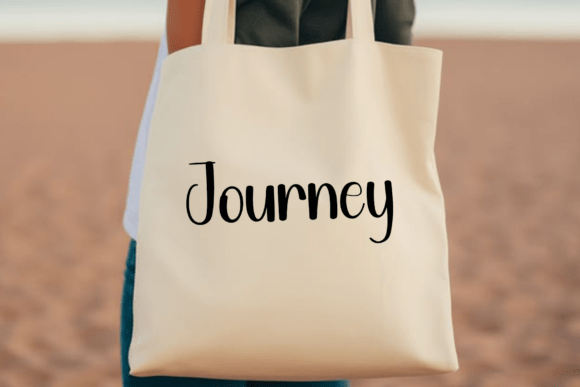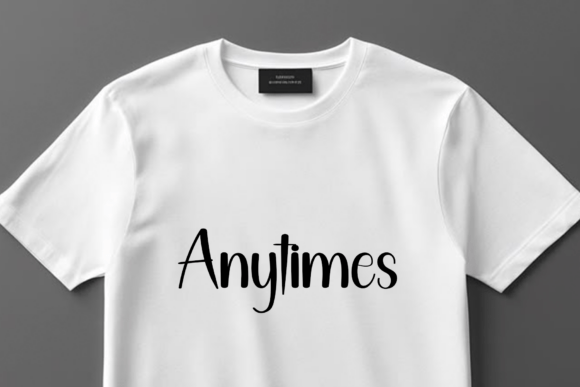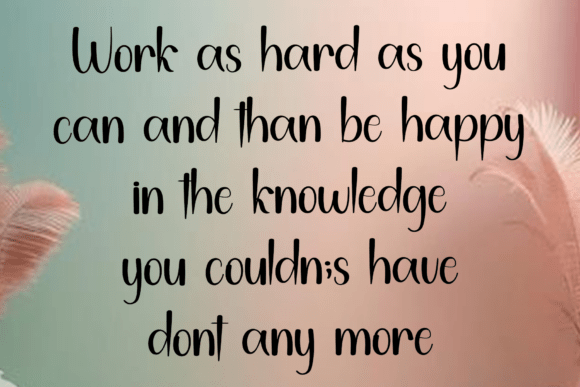
Introduction to Modern Homestay Font
Have you ever stared at a blank canvas, feeling stuck, yet craving the perfect font to bring your creative project to life? It’s that moment when you’re searching for the perfect design resource to convey the essence of your brand. For many designers, finding the right font can be a game-changer.
That’s where the Modern Homestay Font comes in – a beautiful, high-quality handwritten script font that exudes warmth and comfort. With its smooth, flowing lines, it’s the perfect addition to any design project, whether you’re creating branding, packaging, signage, or lifestyle blog content.
What sets Modern Homestay Font apart is its ability to add a personal touch to your designs. Available for free download with a transparent background, this versatile font is a valuable resource for designers looking to elevate their creative projects.
Key Features of Modern Homestay Font
- High-quality design resource for creative projects, perfect for modern homestay designs and websites.
- Unique and stylish design with a transparent background, allowing for easy customization and composition.
- Perfect for use in web design, graphic design, and digital publishing projects, including websites, social media, and advertising.
- Designed with a modern and minimalist aesthetic, ideal for creative professionals and entrepreneurs.
- Includes a range of font styles and weights, providing flexibility and versatility for various design applications.
- Compatible with a range of resolutions, including Retina displays, ensuring crisp and clear text rendering.
Honest Review: Modern Homestay Font
I recently had the opportunity to work with the Modern Homestay Font, and I must say it’s a great addition to any design resource. The font itself is high quality, with a clean and modern aesthetic that’s perfect for creative projects.
Here are some things that worked well for me:
- ✨ The font comes with a transparent background, making it easy to use in a variety of design scenarios.
- ✨ The font is highly customizable, with a range of weights and styles to choose from.
- ⚠️ The font doesn’t include as many special characters as I would have liked.
- ⚠️ The font can be a bit difficult to read at small font sizes.
Overall, I’m impressed with the Modern Homestay Font. While it’s not perfect, it’s a great addition to any design resource and can be a valuable asset for designers working on creative projects. With a little bit of tweaking, I think this font has the potential to be a game-changer in the world of design.
Tips for Getting the Most Out of Modern Homestay Font
For a high-quality design, use the Modern Homestay Font with a transparent background to create a seamless look. Experiment with different font sizes and styles to add creativity to your project.
Common Use Cases for Modern Homestay Font
The Modern Homestay Font is perfect for any design project, from social media graphics to business cards. Use it to create a modern and sleek design that stands out from the crowd.
Alternatives to Modern Homestay Font
Lato is often compared to Modern Homestay Font due to its modern aesthetic, but it lacks the unique, handwritten feel of the latter. Use Lato for projects that require a high-quality, sans-serif font with a wide range of applications.
2. Montserrat Font
Montserrat is a geometric sans-serif font that is perfect for creative projects, especially those with a urban or modern theme. It’s available for free download and features a transparent background, making it easy to use in various design contexts. Montserrat is a great choice when you need a font that exudes a sense of modernity and sophistication.